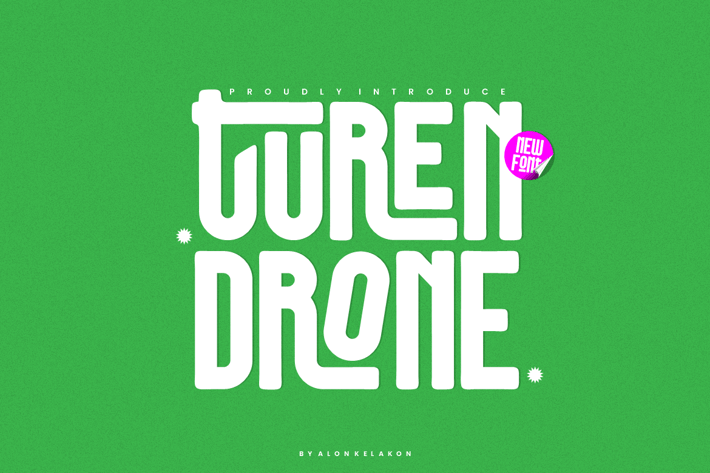
Turen Drone - Condensed Font
Turen Drone Font is unique . Ready to use for your design like labeling, movie sceen, poster, movie title, gigs, album covers, logos, and much more.